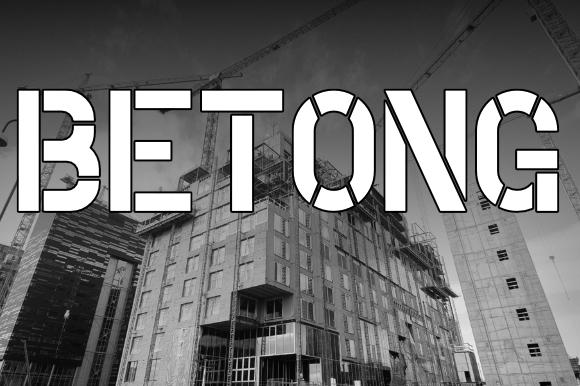
Introducing Betong Font: A Modern Monospaced Sans-Serif Stencil Type
Are you a designer or crafter looking for a unique and versatile font to elevate your creative projects? Look no further than Betong Font, a monospaced sans-serif “stencil type” font with a distinctive 3:2 ratio cap height. In this article, we’ll dive into the world of Betong Font, exploring its features, benefits, and uses, as well as provide tips on how to incorporate it into your design workflow.
What is Betong Font?
Betong Font is a carefully crafted monospaced sans-serif font, designed with a stencil type approach. Its monospaced nature means that each character has the same width, creating a sense of uniformity and structure. The font’s sans-serif design ensures a clean and modern aesthetic, perfect for a wide range of applications, from digital interfaces to print materials.
The Unique 3:2 Ratio Cap Height
One of the standout features of Betong Font is its 3:2 ratio cap height. This distinctive proportion gives the font a unique character, setting it apart from more traditional fonts. The 3:2 ratio creates a sense of balance and harmony, making Betong Font ideal for use in titles, headings, and other display text.
Key Features of Betong Font
- Monospaced design: Each character has the same width, creating a sense of uniformity and structure.
- Sans-serif aesthetic: Clean and modern, perfect for digital interfaces and print materials.
- Stencil type approach: Adds a touch of industrial chic to your designs.
- 3:2 ratio cap height: A unique and distinctive feature that sets Betong Font apart.
Benefits of Using Betong Font
So why choose Betong Font for your design projects? Here are just a few benefits:
- Versatility: Betong Font is suitable for a wide range of applications, from digital interfaces to print materials.
- Legibility: The monospaced design and clean sans-serif aesthetic make Betong Font highly legible, even at small sizes.
- Uniqueness: The 3:2 ratio cap height and stencil type approach give Betong Font a distinctive character that will set your designs apart.
Using Betong Font in Your Design Workflow
Ready to start using Betong Font in your designs? Here are a few tips to get you started:
- Pair with complementary fonts: Betong Font pairs well with a range of fonts, from serif to script. Experiment with different combinations to find the perfect match for your project.
- Experiment with sizes and colors: Betong Font is highly legible, even at small sizes. Try using it in a range of sizes and colors to add visual interest to your designs.
- Use in titles and headings: The 3:2 ratio cap height makes Betong Font perfect for use in titles and headings. Use it to add a touch of sophistication and elegance to your designs.
Betong Font is a unique and versatile monospaced sans-serif stencil type font that’s perfect for designers and crafters looking to elevate their creative projects. With its distinctive 3:2 ratio cap height and clean sans-serif aesthetic, Betong Font is sure to add a touch of sophistication and elegance to your designs. Whether you’re working on a digital interface or a print project, Betong Font is a great choice. So why not give it a try and see the difference it can make?